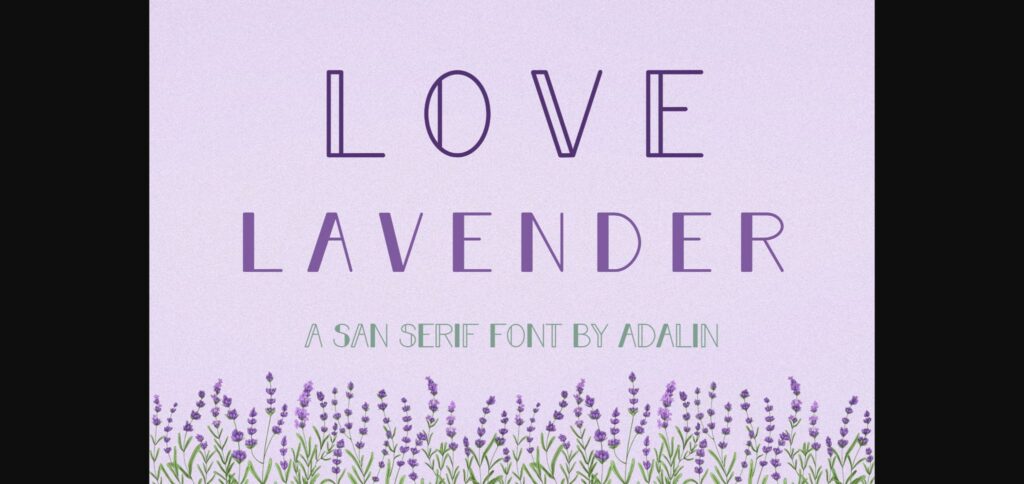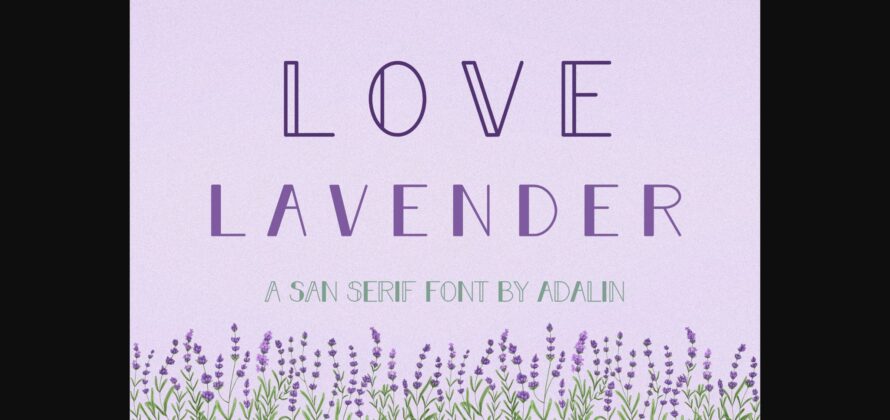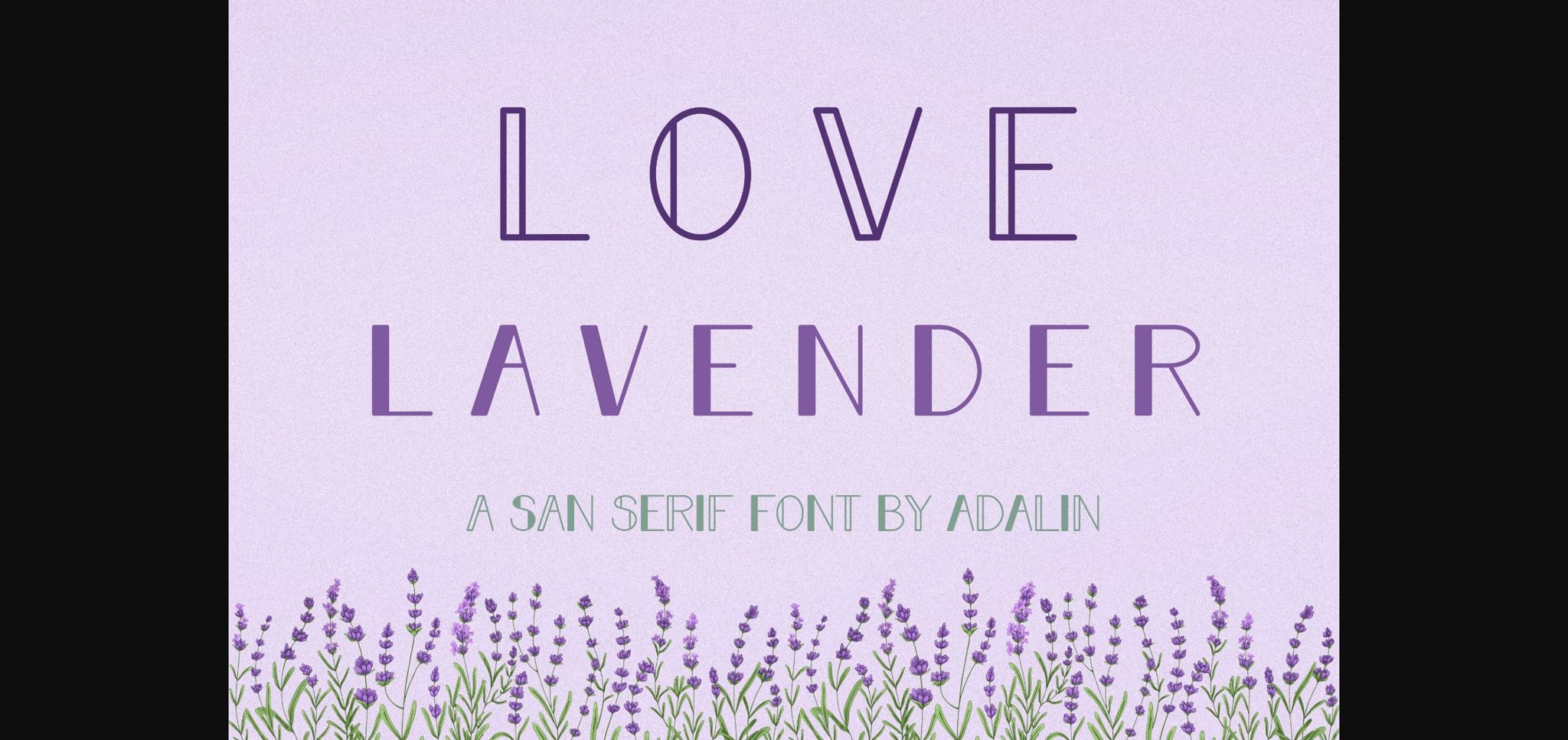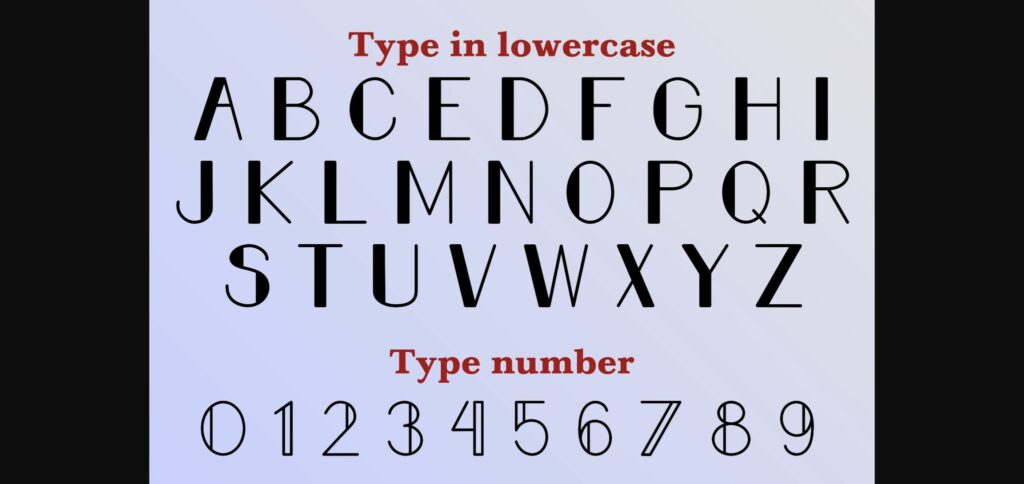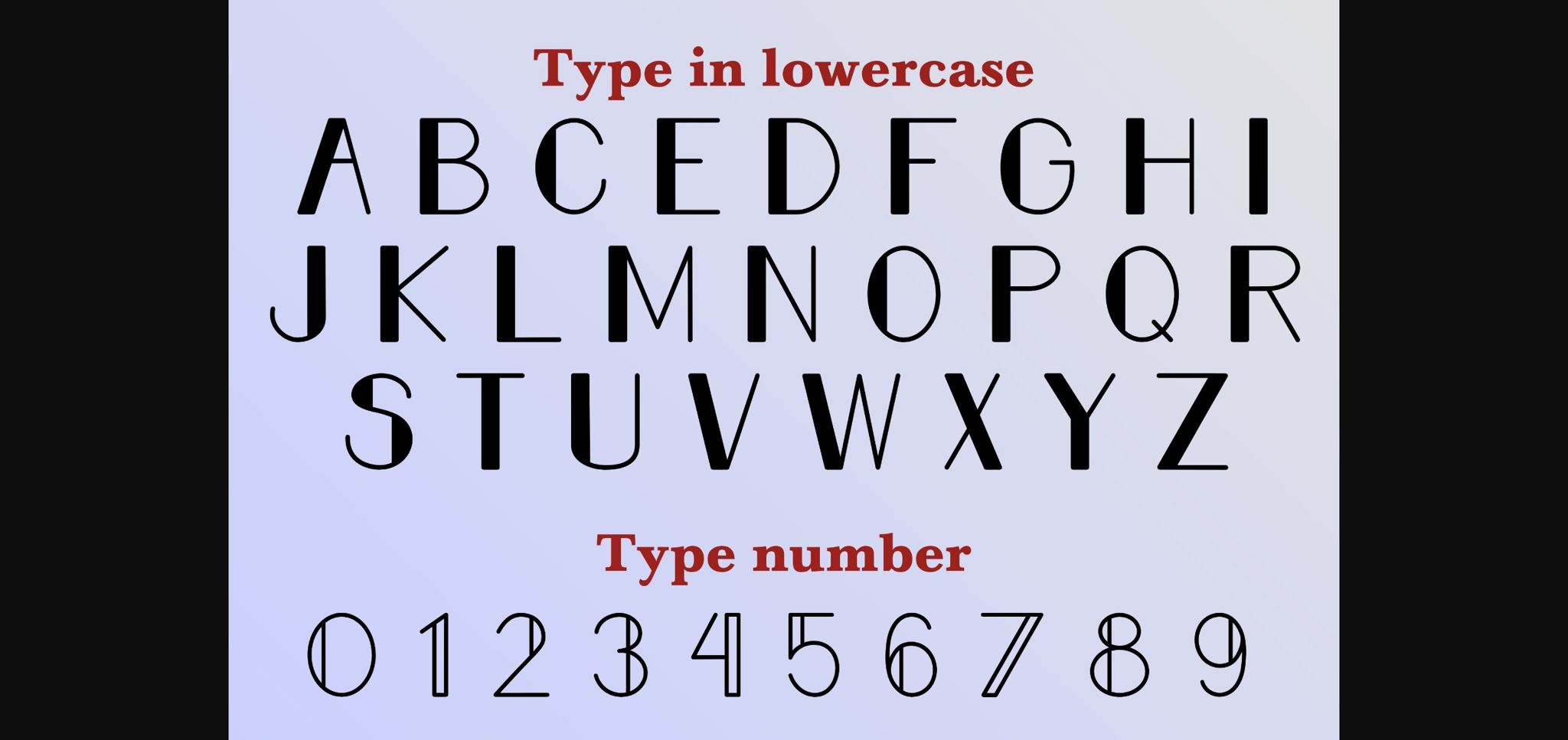
Love Lavender Font
About Love Lavender Font
Love Lavender is a sans serif font that can be used for any product including food products, beverages, office equipment, construction, clothes, shoes, and so much more.